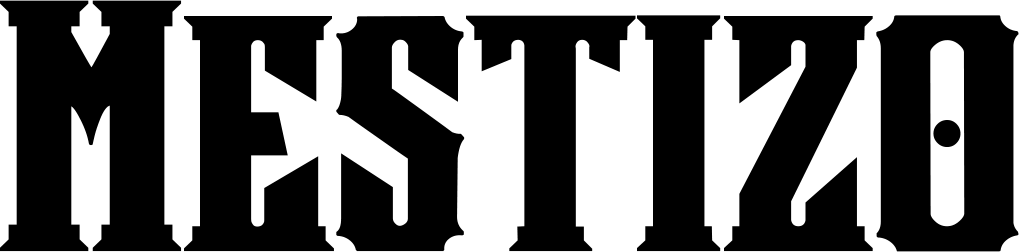
Mestizo Font
Bring a classic and vintage mood and make your designs inspiring. Mestizo is a retro font that you can use for different projects, such as; apparel products, flyers, event tickets, and so on. Just keep in mind that it doesn’t include small letters. Give it a shot now and see how it sounds.
Mestizo is a vintage letterhead typeface that is inspired from signage designs and alcohol labels from the early 1900’s. Clean, bold and strong are the few words to describe mestizo, the same reason why it is the perfect header font for poster, package design, brochures, t-shirts, logotypes and so much more!Download and Enjoy!